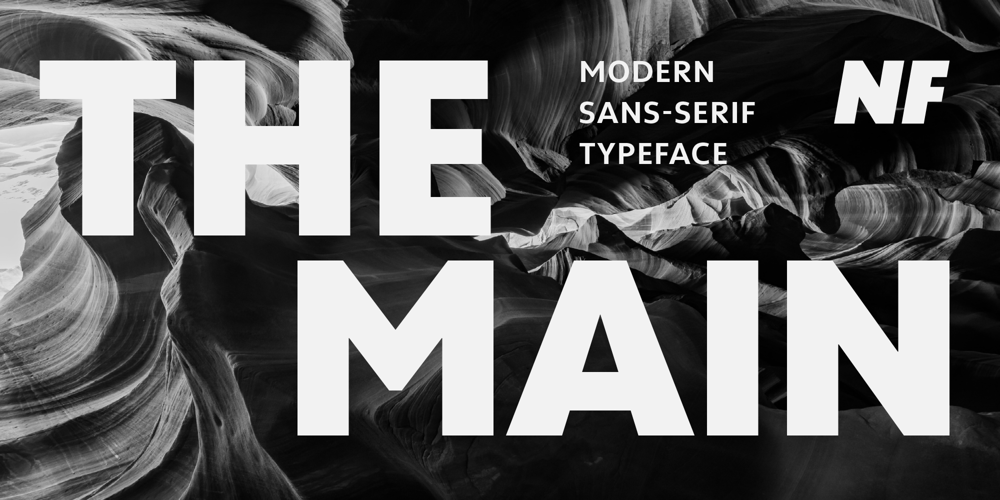
The Main Font Family was designed by Nikolay Savchuk and published by NicolassFonts. The Main contains 17 styles and family package options. The Main is a modern sans-serif font family. It comes in 16 weights, 8 uprights, and matching italics. The Main has separate softly beveled corners, which gives it a unique look. Each weight includes OpenType features. Completely suited for graphic design and any display use.